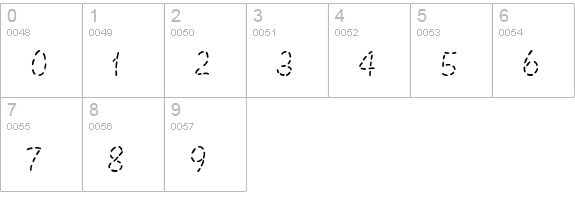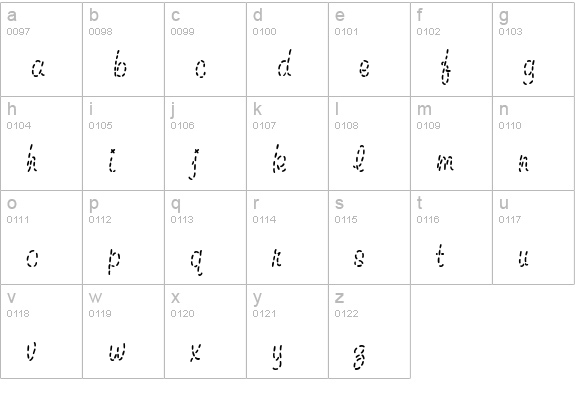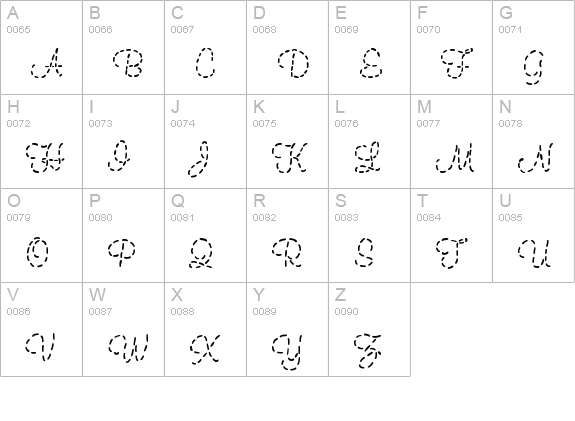
Topstitch Font Details
Topstitch font is a modern and stylish typeface that exudes sophistication and elegance. Its clean lines and sleek design make it perfect for a wide range of design projects, from branding to editorial design. The unique detailing in each character gives Topstitch font a distinctive and eye-catching appearance that will make your designs stand out. The best part is, Topstitch font is available for free download at FontsMarket.com. This means that you can easily add this beautiful font to your collection without having to spend a dime. Whether you're a seasoned designer looking to refresh your font library or a beginner exploring different typography options, Topstitch font is a versatile choice that will elevate your projects to the next level. Download it today and start creating stunning designs with this gorgeous typeface.